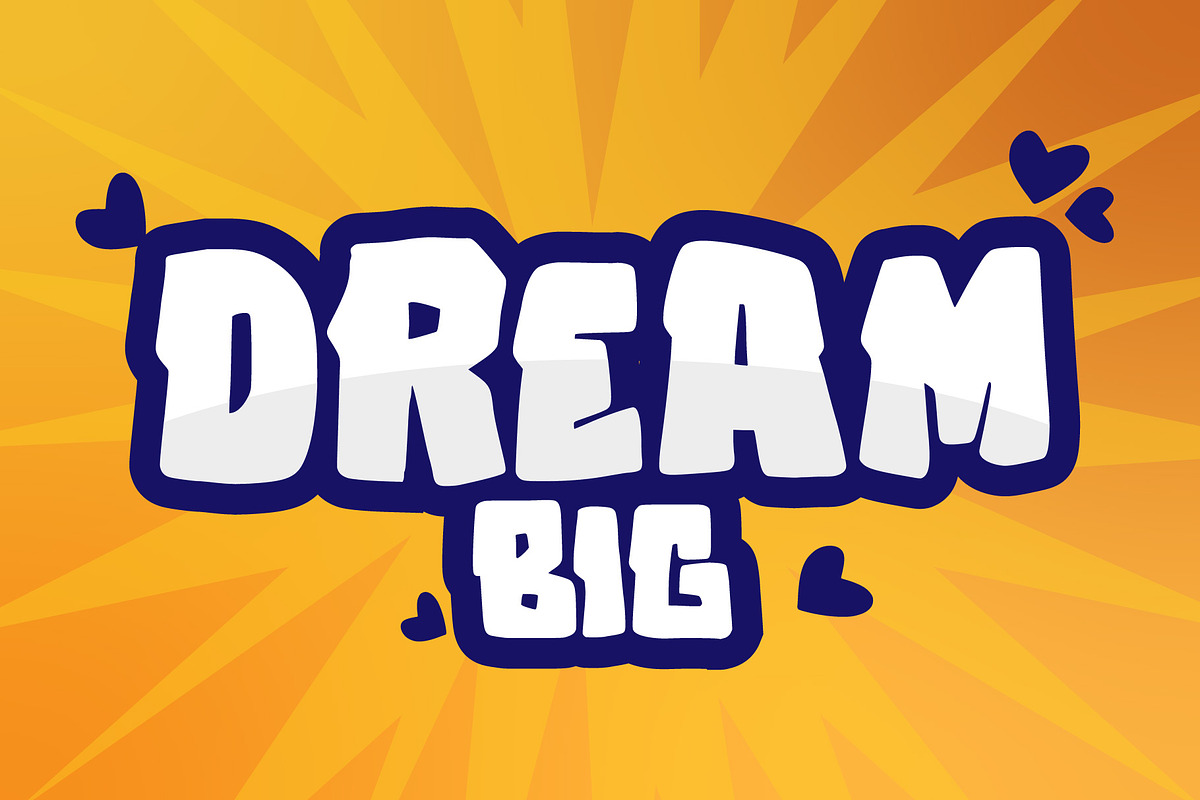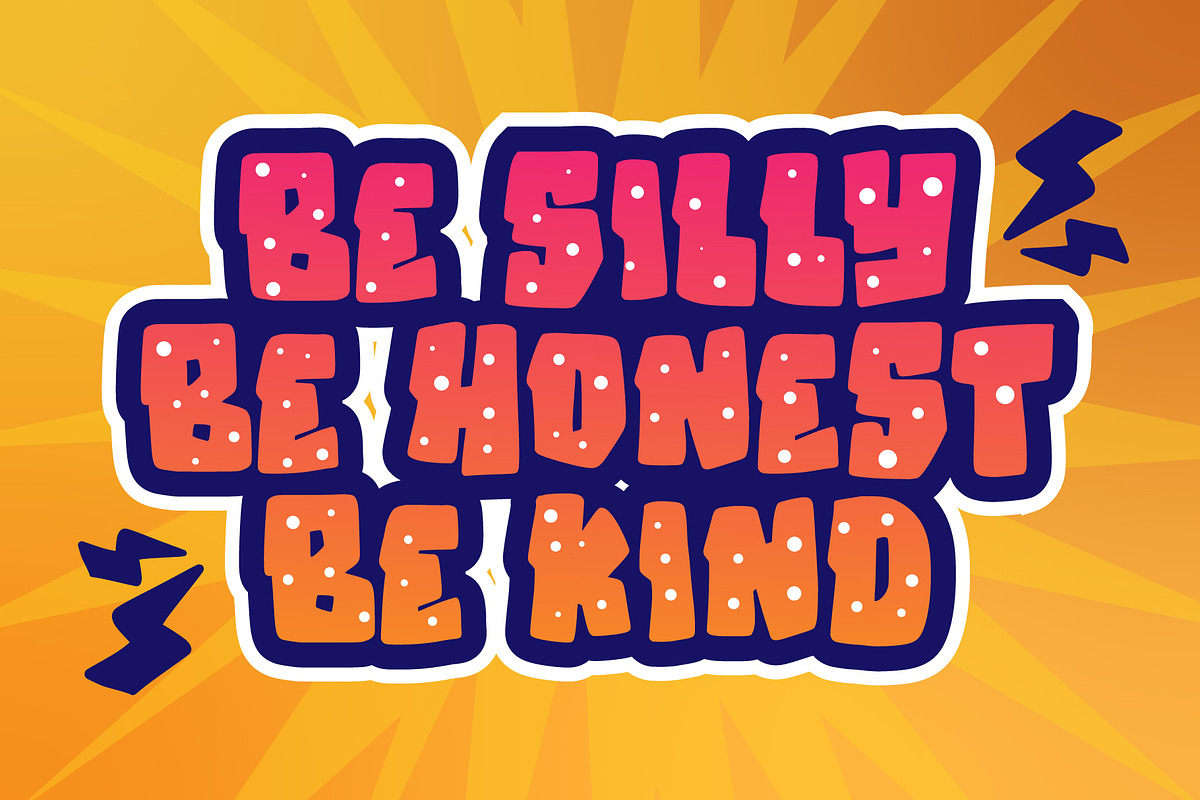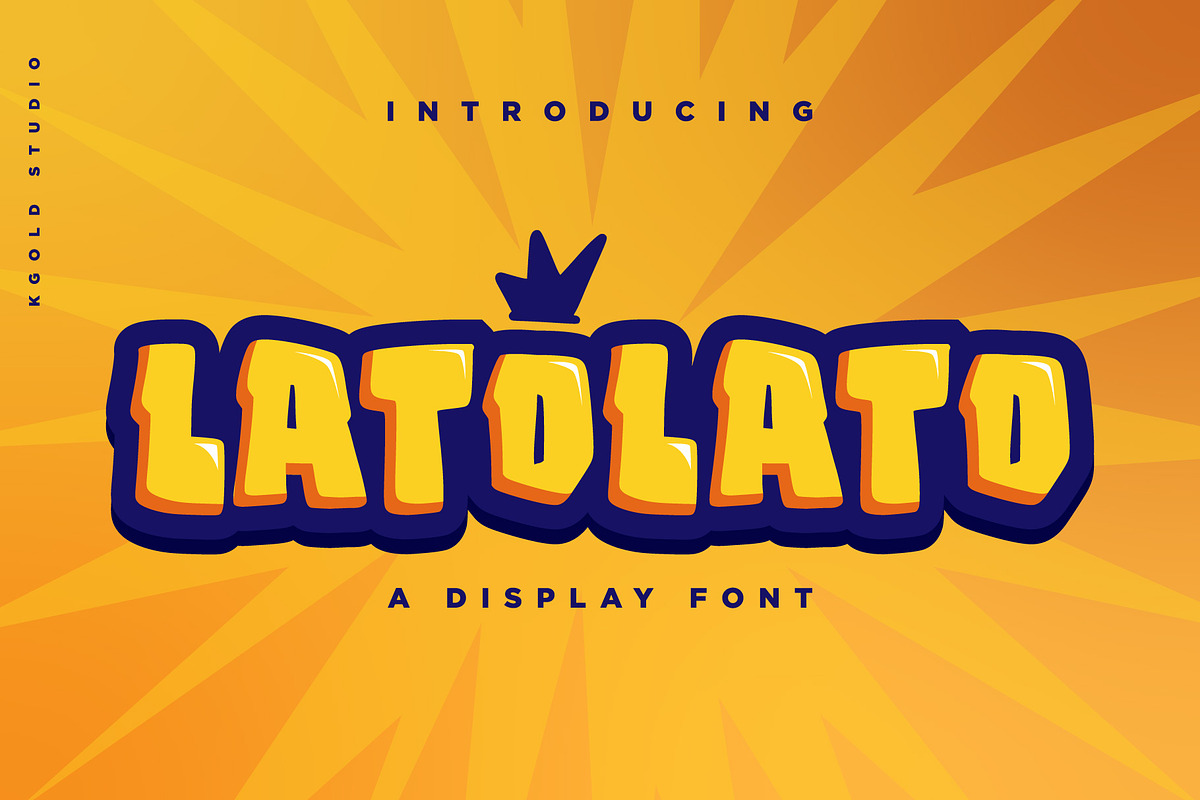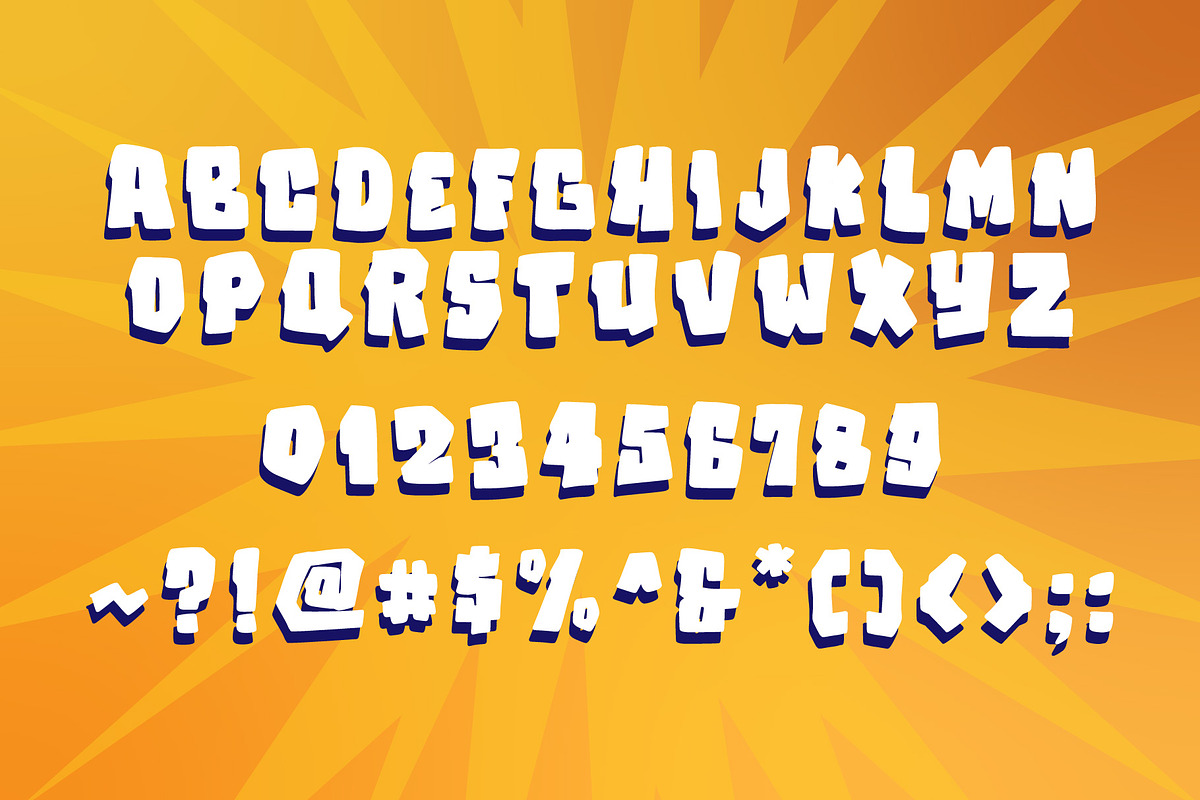
Latolato
Latolato is a fun, cool, and thick lettered display font. It embodies playfulness and authenticity and is the perfect choice for any children's activity or school project.